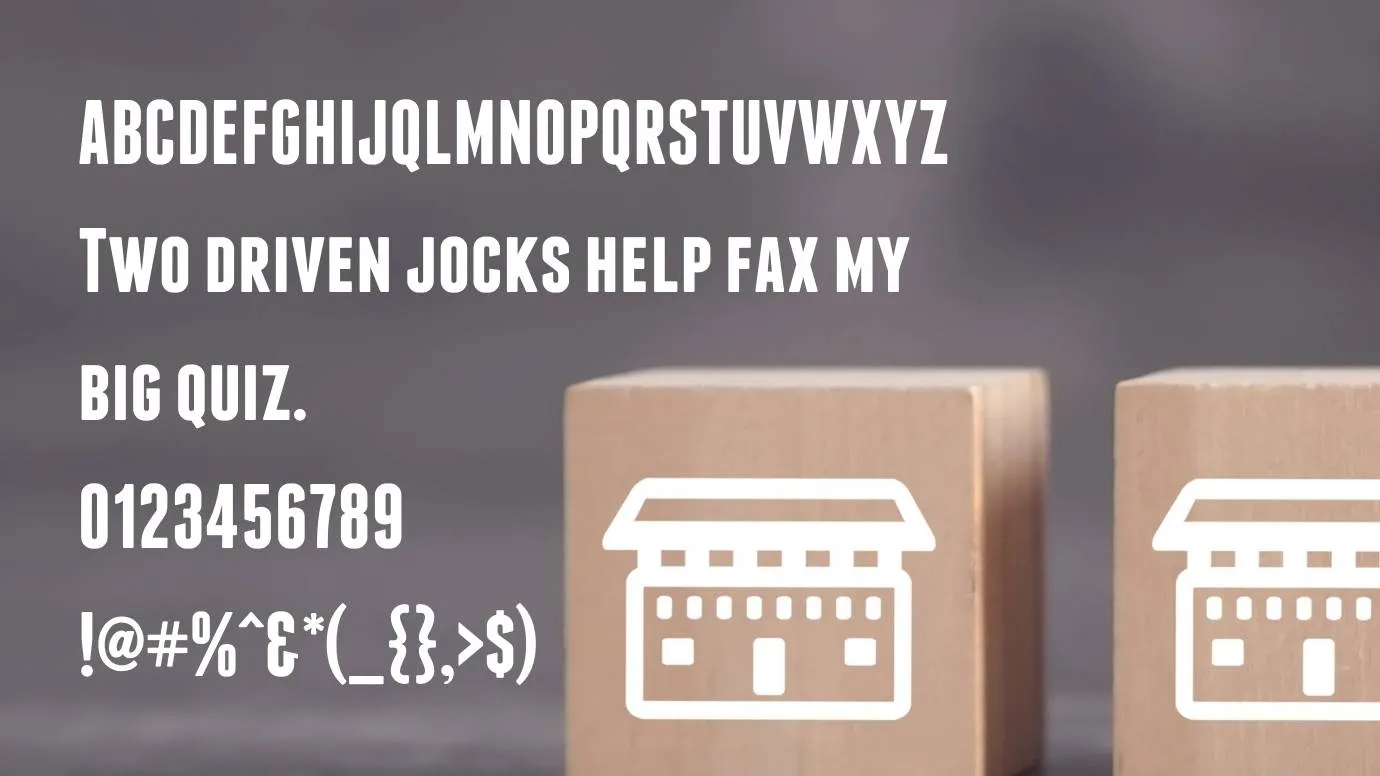
Franchise font belongs to the geometric Sans-Serif font family. This font family is popular for its collection of neat and elegant typefaces. This textured style features a powerful and bold texture that works well in display displays and applications. It works well with large-screen displays and brief texts such as headings. However, it is not ideal for use on small screens or with extensive paragraphs. This font style is very well-known for its ability to copy and paste. This font style also has the possibility to be paired. It goes well with any Sans-Serif typeface.
this font is perfect to create amazing headings and displays. It is appropriate to use it on large screen display sizes. With its unique and amazing display characters, you can create amazing designs on your creative websites and projects. This textured style has a fashionable and creative texture visualization, making it ideal for use in trendy and creative designs. This typeface can also be used to make beautiful and trendy thumbnails for your YouTube channels.
It may also be used to make fantastic logo designs. The character of this typeface has a smooth and elegant texture visualization for official papers. This font has also been used to make invitation cards, personal cards, homeware designs, website designs, and wallpaper patterns, among other things. This typeface also comprised an online text generator. So, with the help of this font, you can create your designs without downloading this font style on your PC or without paying either. It is available in OTF and TTF file versions that you can easily download.
Designer of Franchise Font
This font style has been made by a well-known designer who has also created many of the famous typefaces that are used in a number of designs and projects. He has focused on the perfect readability of this font.
This typeface has been constructed with three styles Regular, Bold, Bold Italic. These styles of this family are comprised of capital letters, glyphs, punctuations, numbers, symbols, special characters, and many languages support.
View of Franchise Font
| Name | Franchise Font |
| Designer | Derek Weathersbee |
It can support up to 89 languages.
This font style belongs to the geometric Sans-Serif font family. This font family is popular for its collection of neat and elegant typefaces.
What font is closest to Franchise font?
There are some typographies that are identical to this font style. Pink Sans Font on the other hand is the most identical to this font style.
Is Franchise Font Worth Using?
This typeface has been used by many organizations and designers. So, yes this typeface is worth using.
Is Franchise Font is a good font?
This font style has a unique and handwritten texture appearance. This typeface has been utilized in various designs and projects. So, this font style is an awesome font.